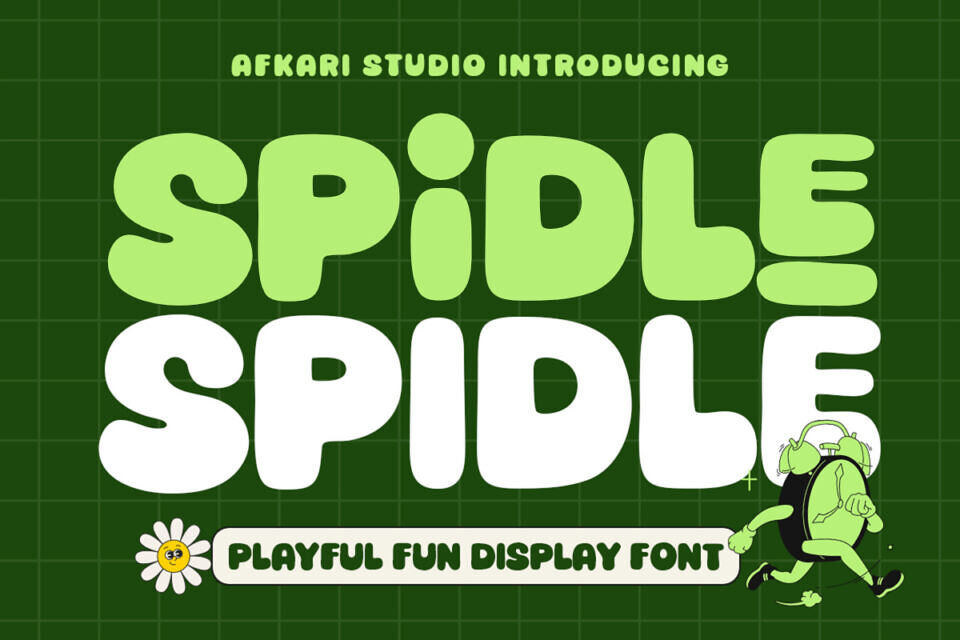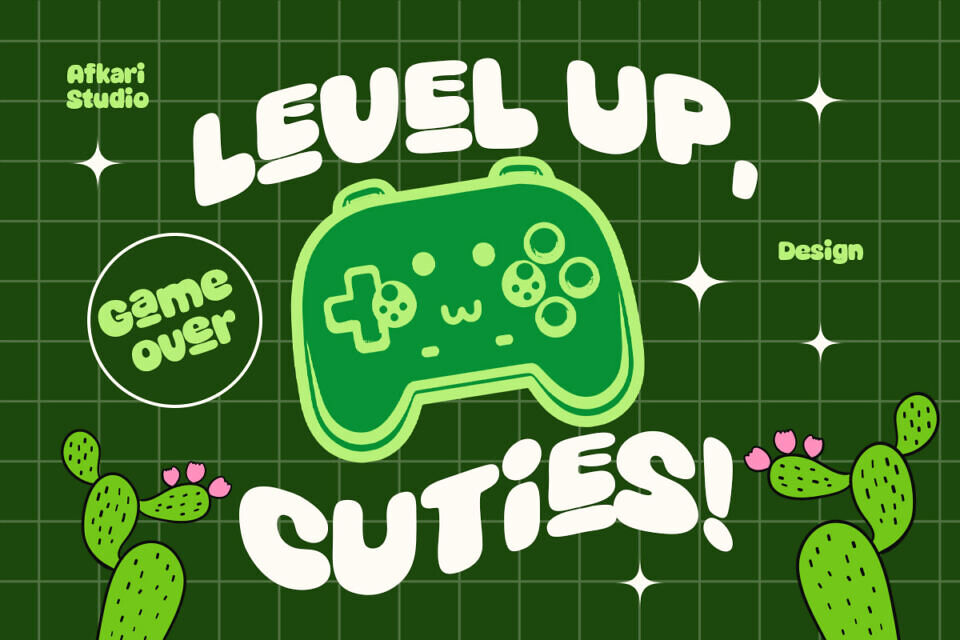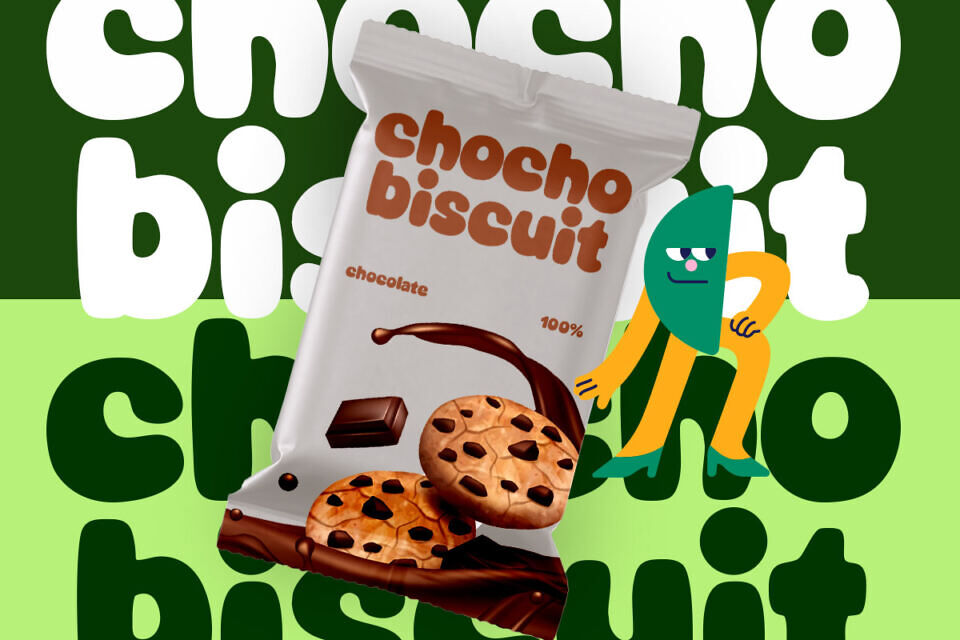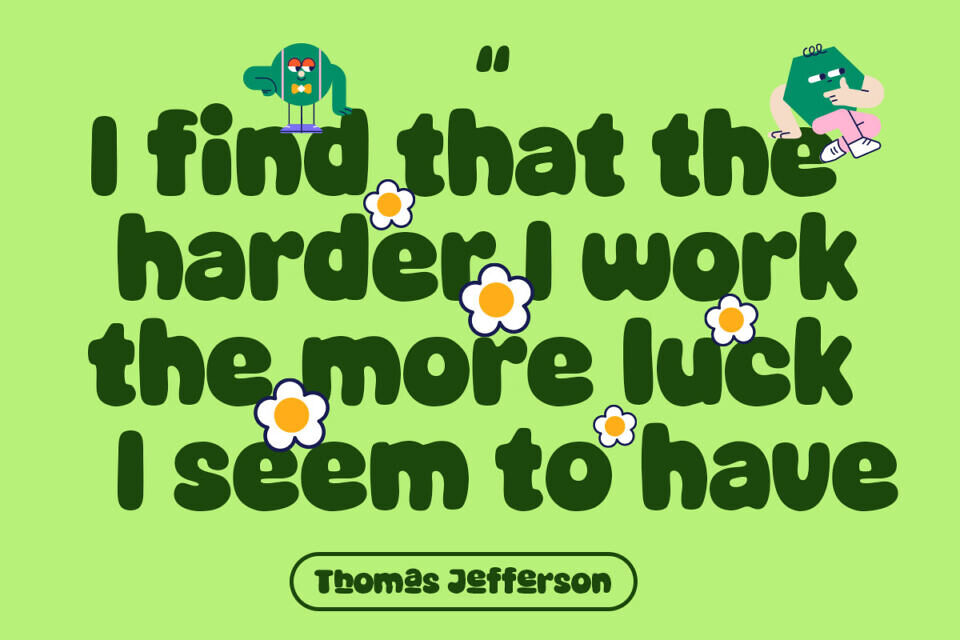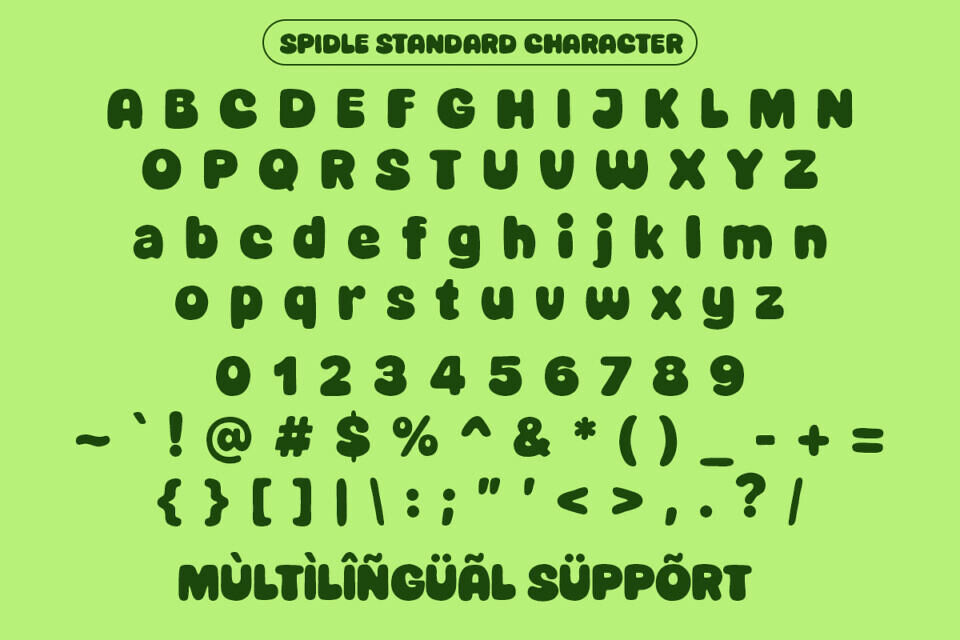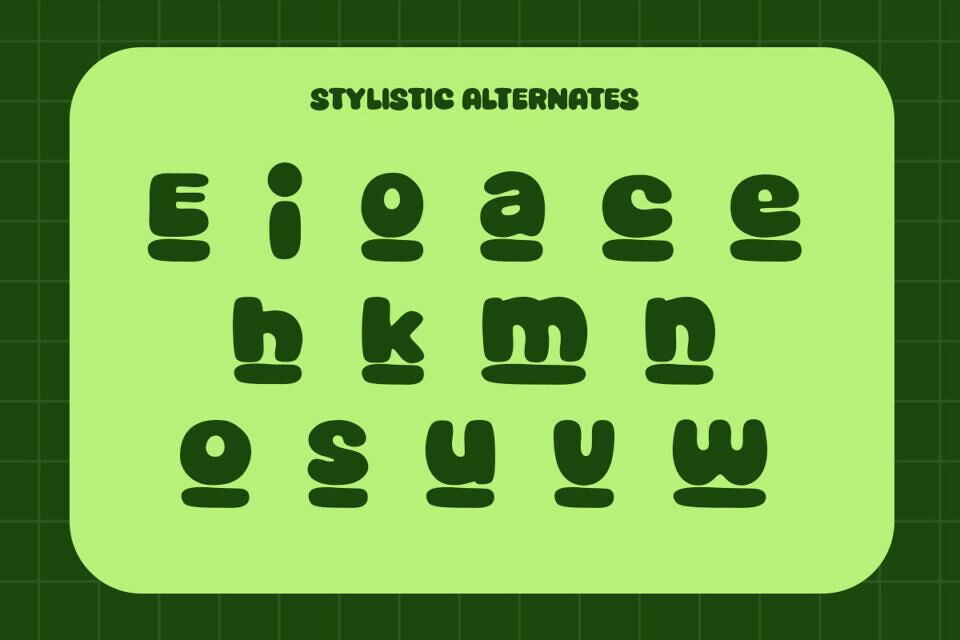
Spidle is a playful fun display font crafted to deliver cheerful personality and eye-catching typography for modern creative projects. Featuring bold, bouncy letterforms and friendly character shapes, this font instantly creates a joyful and approachable visual style.
It balances readability with a playful tone, making it suitable for various applications, from digital to print. Whether designing for kids’ brands, packaging, or social media, Spidle adds warmth and fun to your text, helping it stand out with memorable character. It’s perfect for logos, posters, and marketing visuals, bringing energy and personality to your designs.